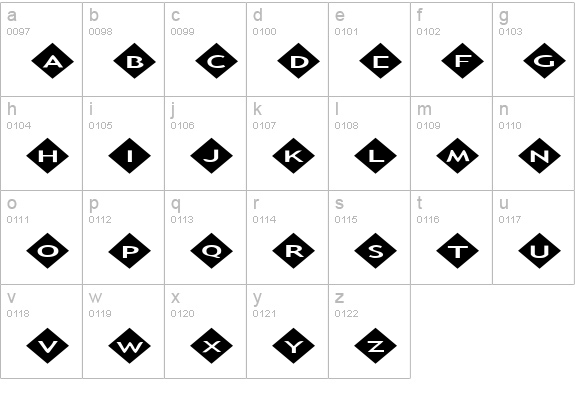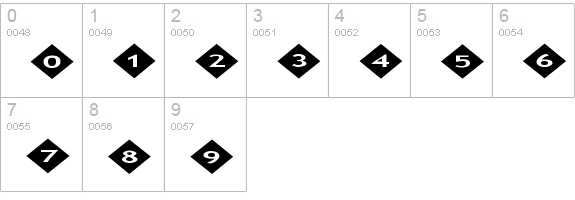
AlphaShapes diamonds 2 font is a stunning display typeface that exudes elegance and sophistication. With its intricate diamond-shaped characters, this font is perfect for adding a touch of luxury to your designs. Whether you're creating invitations, logos, or branding materials, AlphaShapes diamonds 2 font will surely make a statement. The best part? This exquisite font is completely free to download at FontsMarket.com. Don't miss out on the opportunity to elevate your projects with the beauty and charm of AlphaShapes diamonds 2 font. Download it today and unleash your creativity!